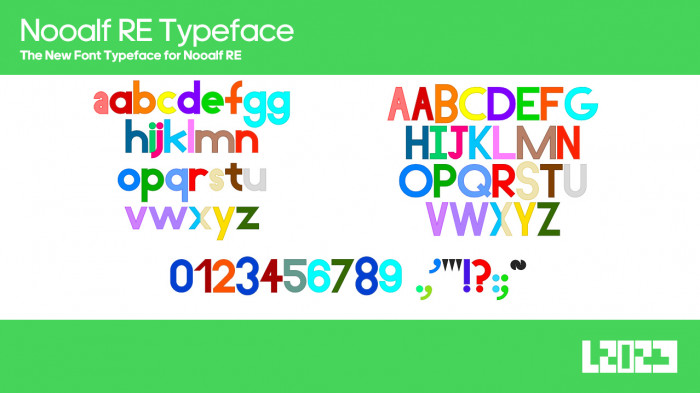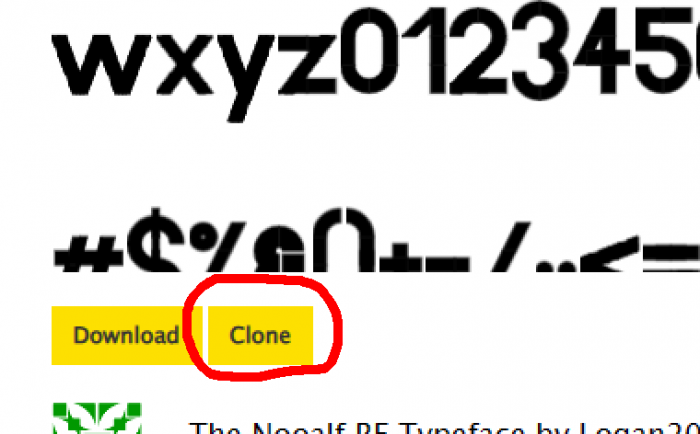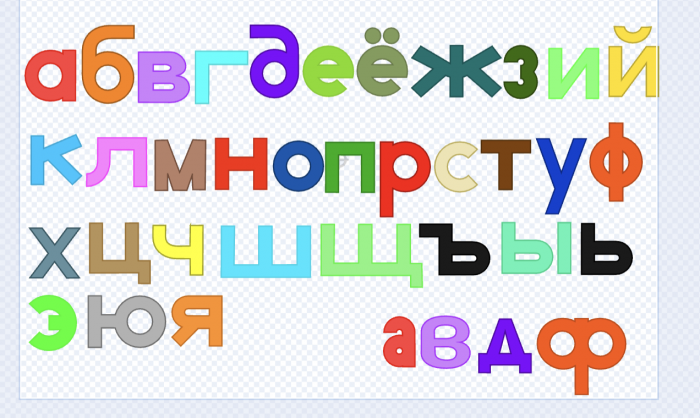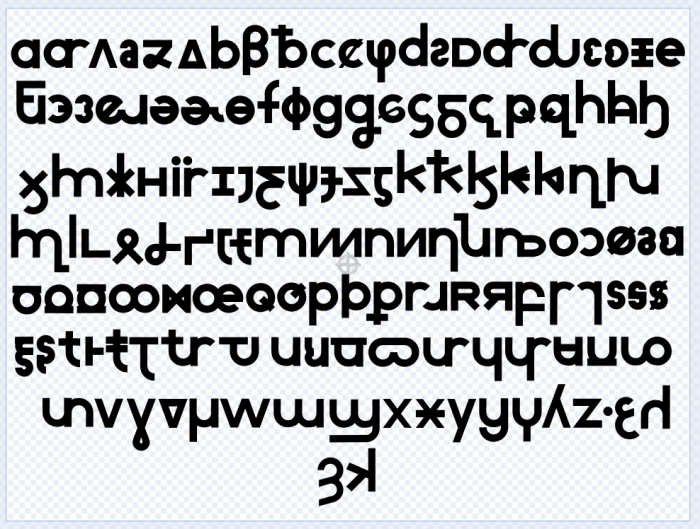
this is an official type of work
how can i get the a, s, and ε glyphs?
So cool!
how could i get the s?
I want to know howw to make these curved shapes like the O, a, s and the diagonals like v, z, k, R
this is NOT made by me. wanna know why? look at this picture.
Do Armenian, please.
I found this D it doesn't look original to me.
This actual font is still unknown.
-I don't like the numbers because 1 has a verical cap. 3 and 8 look like they descend. 4 looks narrow.
-I don't like uppercase because B and S look like they're hanging down. G has a very open aperature. J and Q are very jagged.
the font does seem to be inaccurate, heard you guys were looking for this
might work on a better expanded version of it someday
@digitalio-2 there were some people who try to create the "neweralf/nooalf re" symbols font, i doubt that there's already one called "Symbols 25".